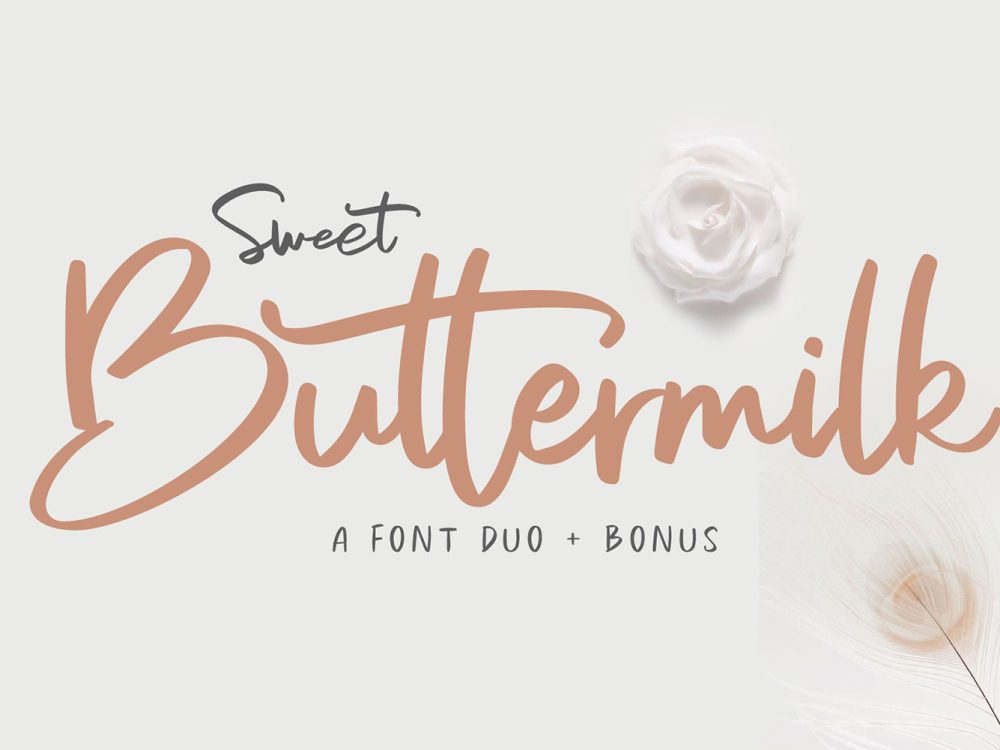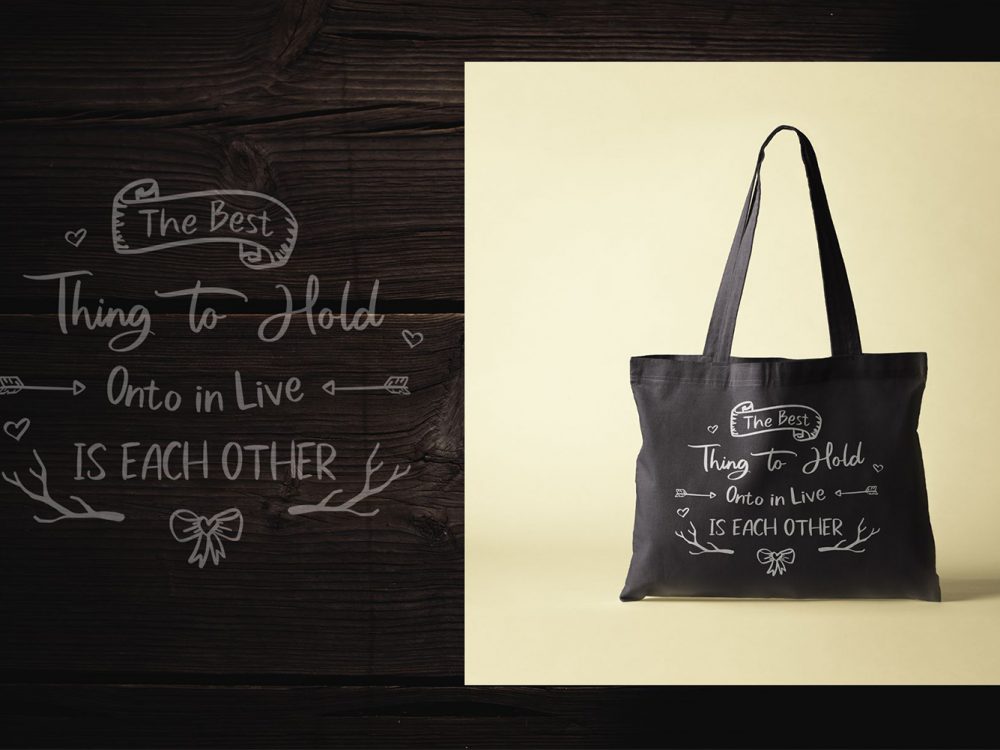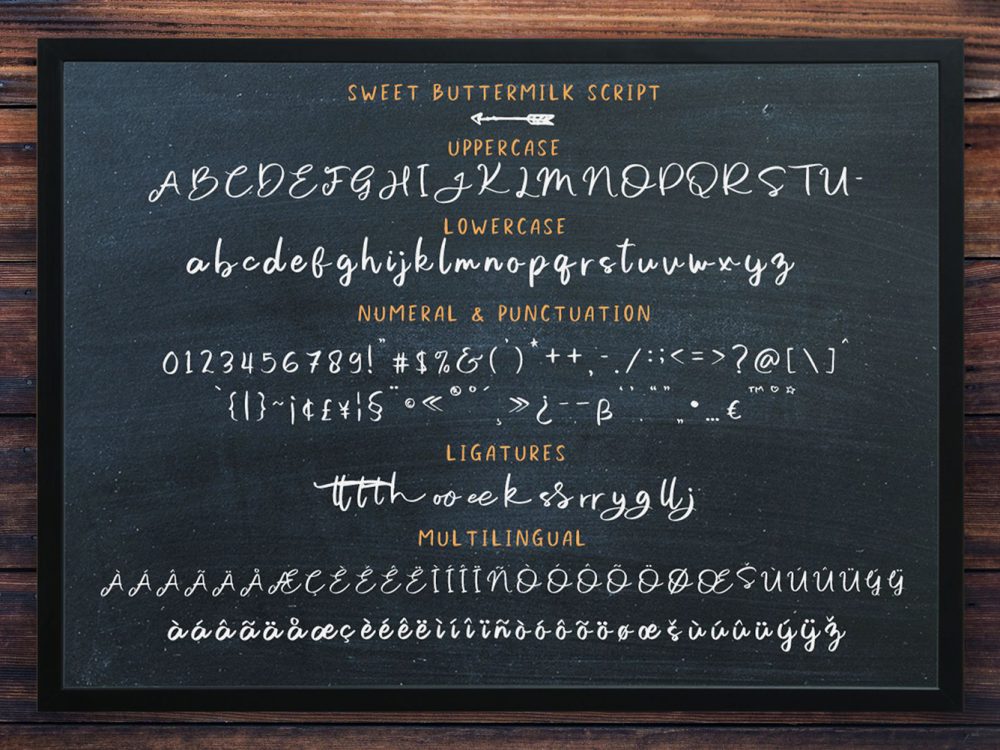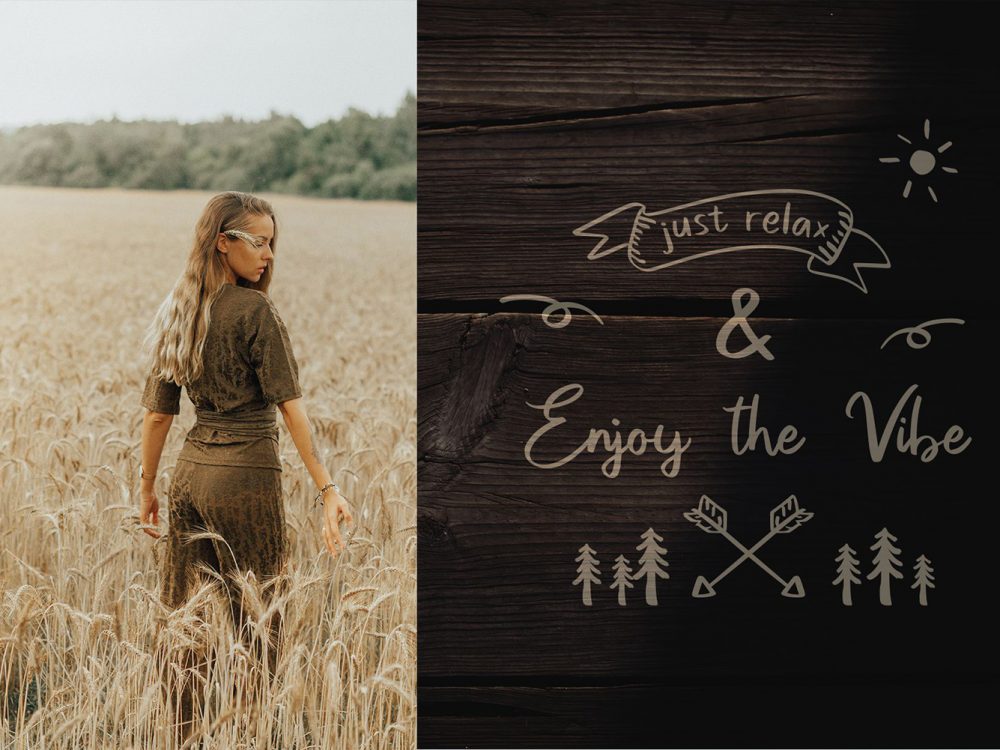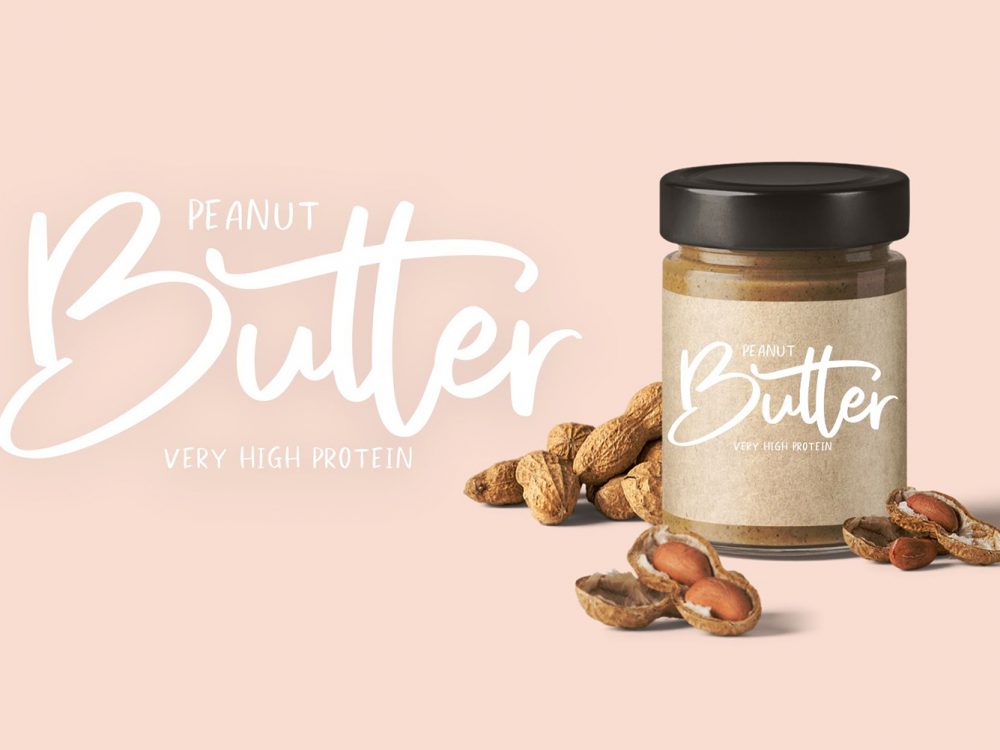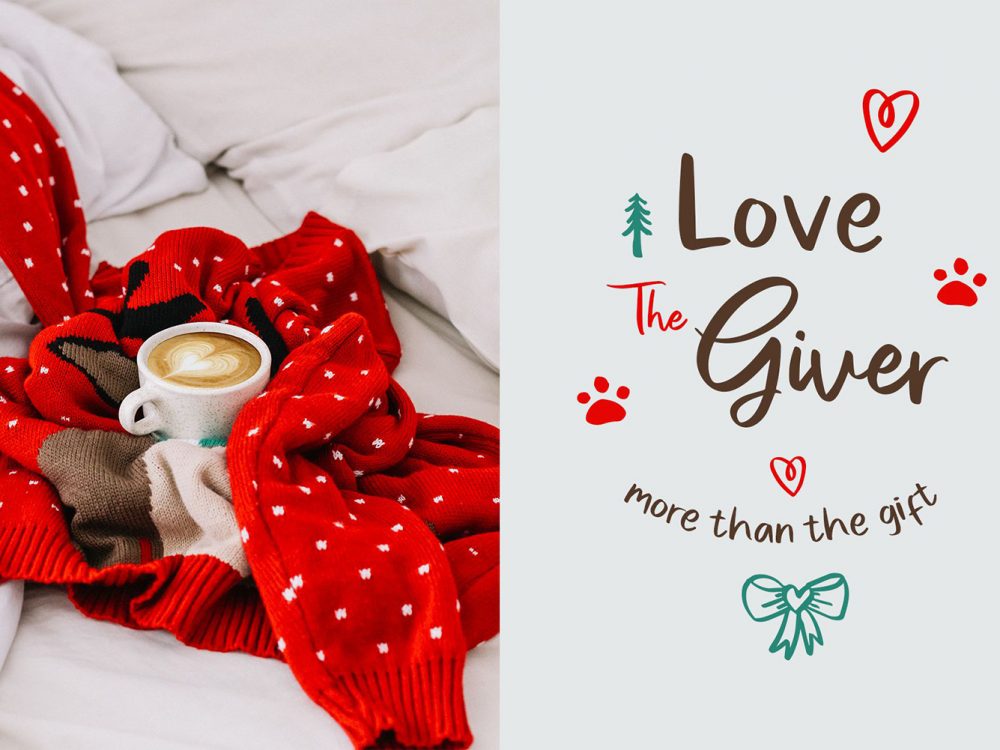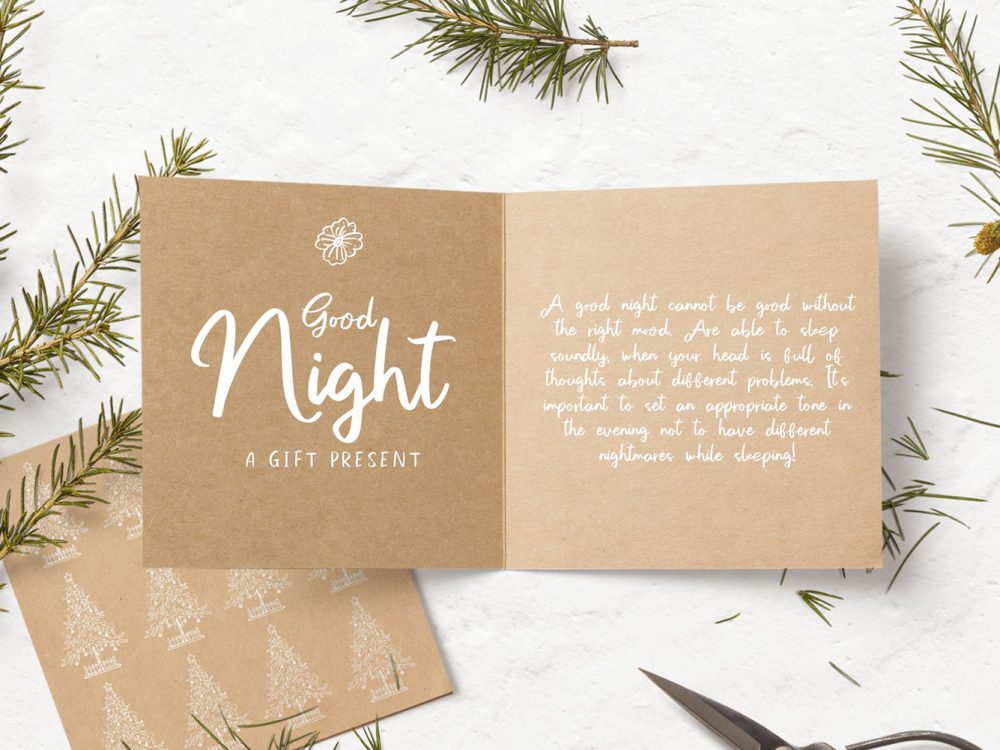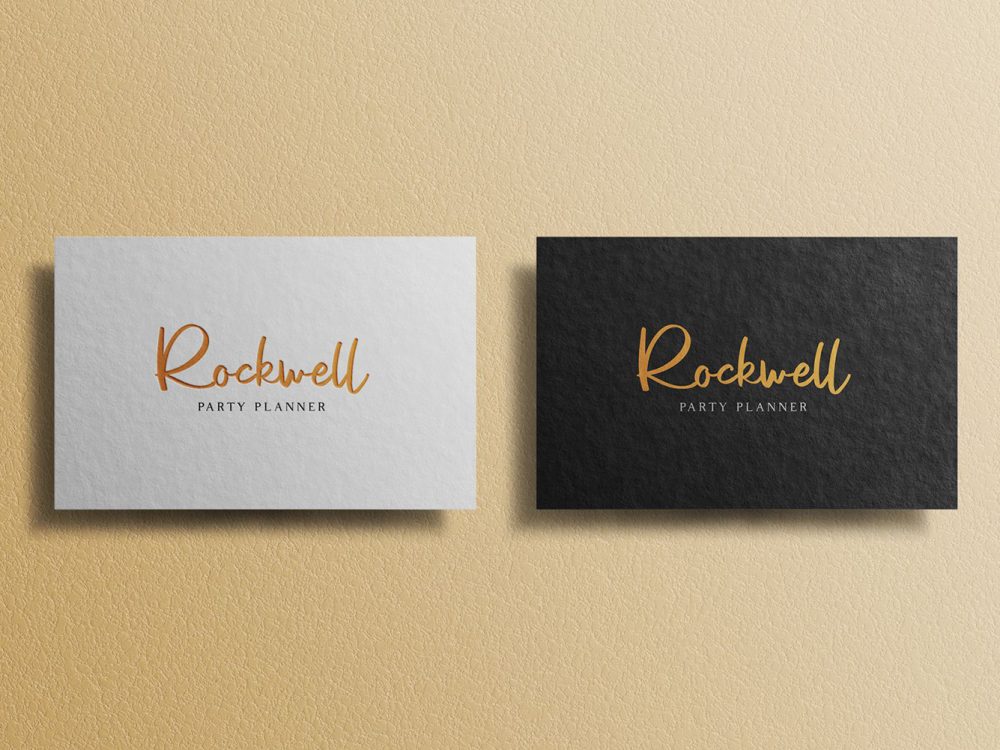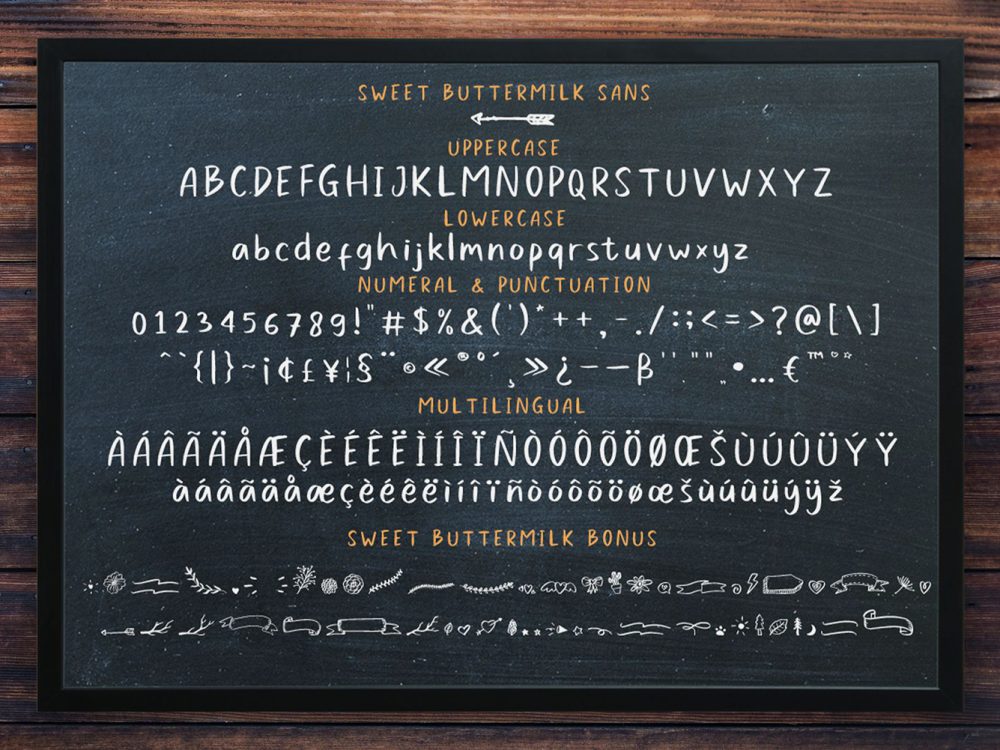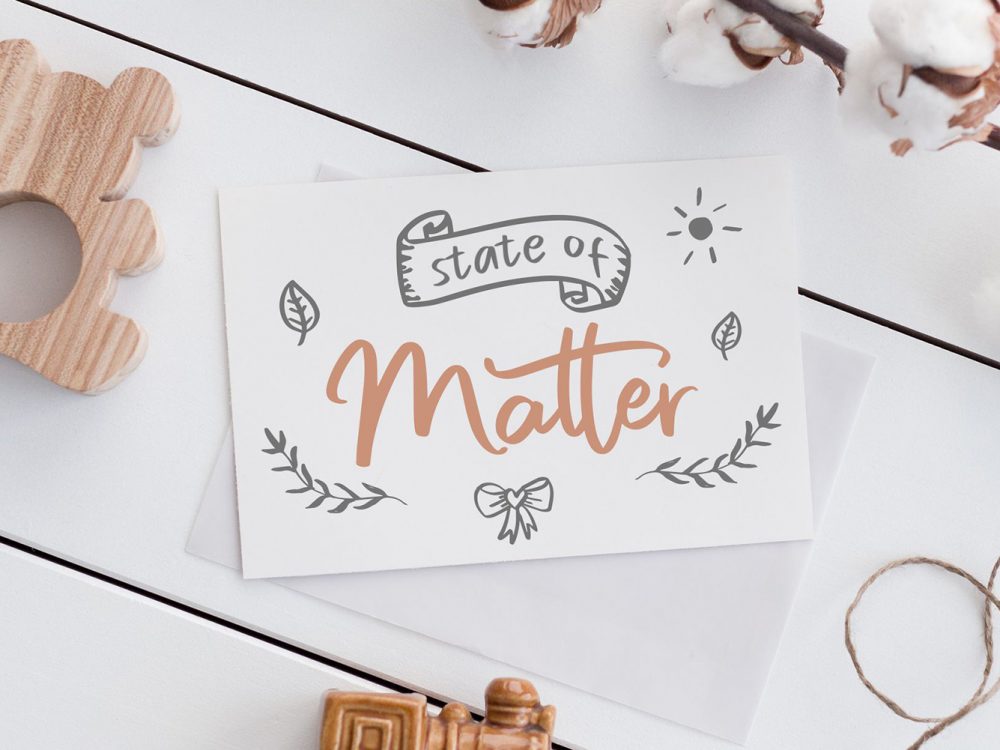
Sweet Buttermilk Free Font
Sweet Buttermilk Free Font is a scripted handwritten font that mimics writing with a brush and features a modern calligraphic style. This font is well suited for various design projects that require a handwritten script font. You can use this font to create interesting and memorable posters, wedding invitations, cards, branding, flyers, and more. Improve the quality and increase the popularity of your design projects by using this font. If you like it don’t forget to check out the full version.